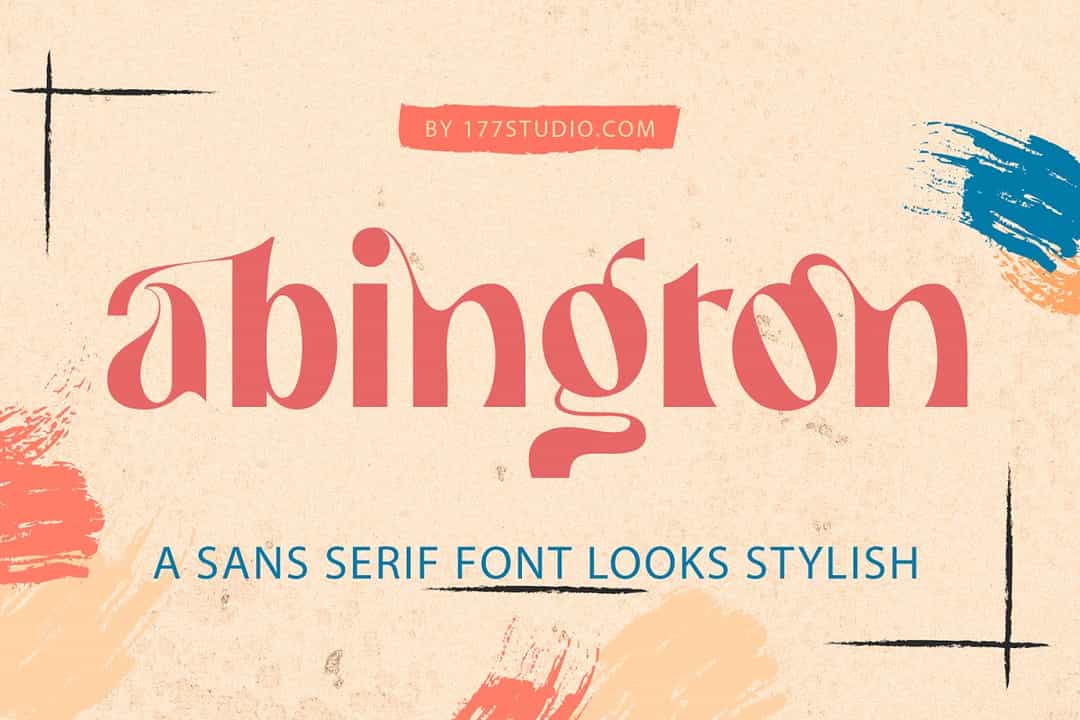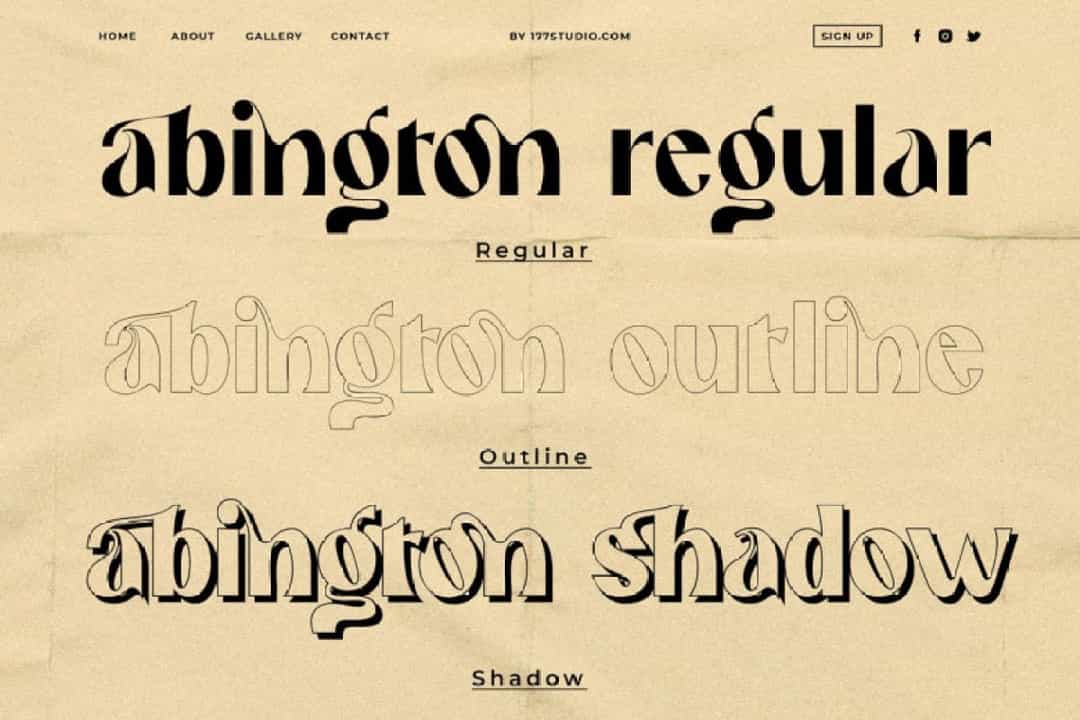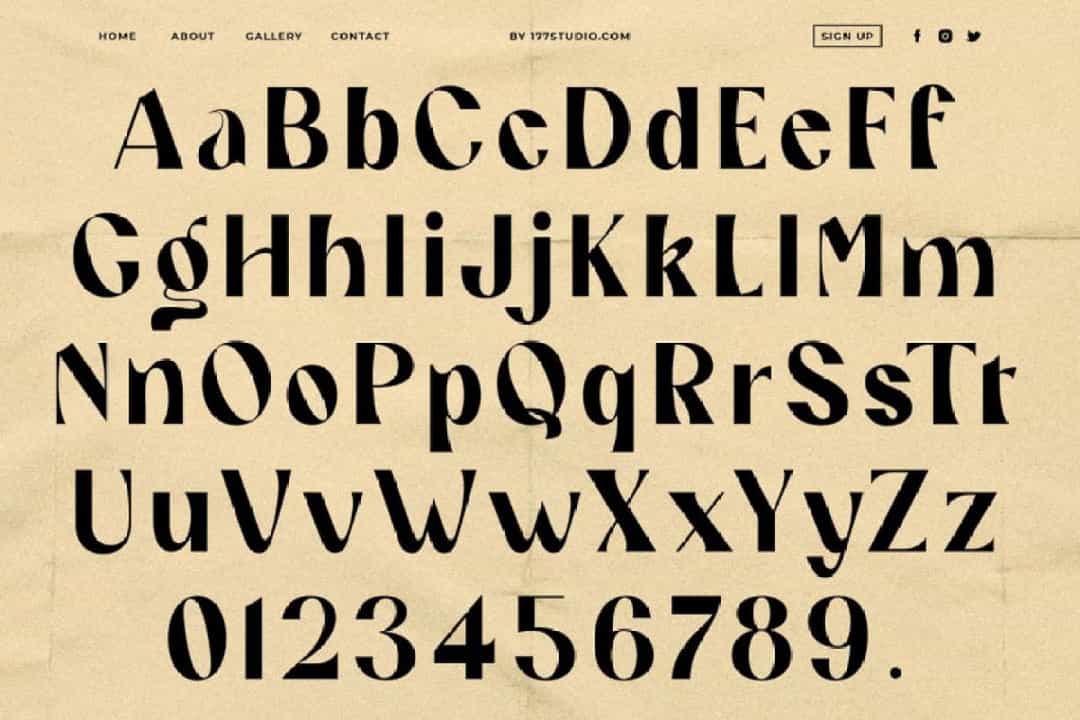
Discover Abington Font, part of the Sans Serif Display Basic Personal collection—a versatile and unique font perfect for adding a personal touch to your projects. Download it for free and enjoy crafting designs with style, from invitations to social media posts. This font is available exclusively for personal use, giving you the freedom to create without limits. Unlock your creativity with Abington Font today!
It is a very beautiful and modern font that comes with some touches of antique look and feel that makes it amazing for any use. Ideal to be used in any project that has a complex design, Abington is a great choice to incorporate.